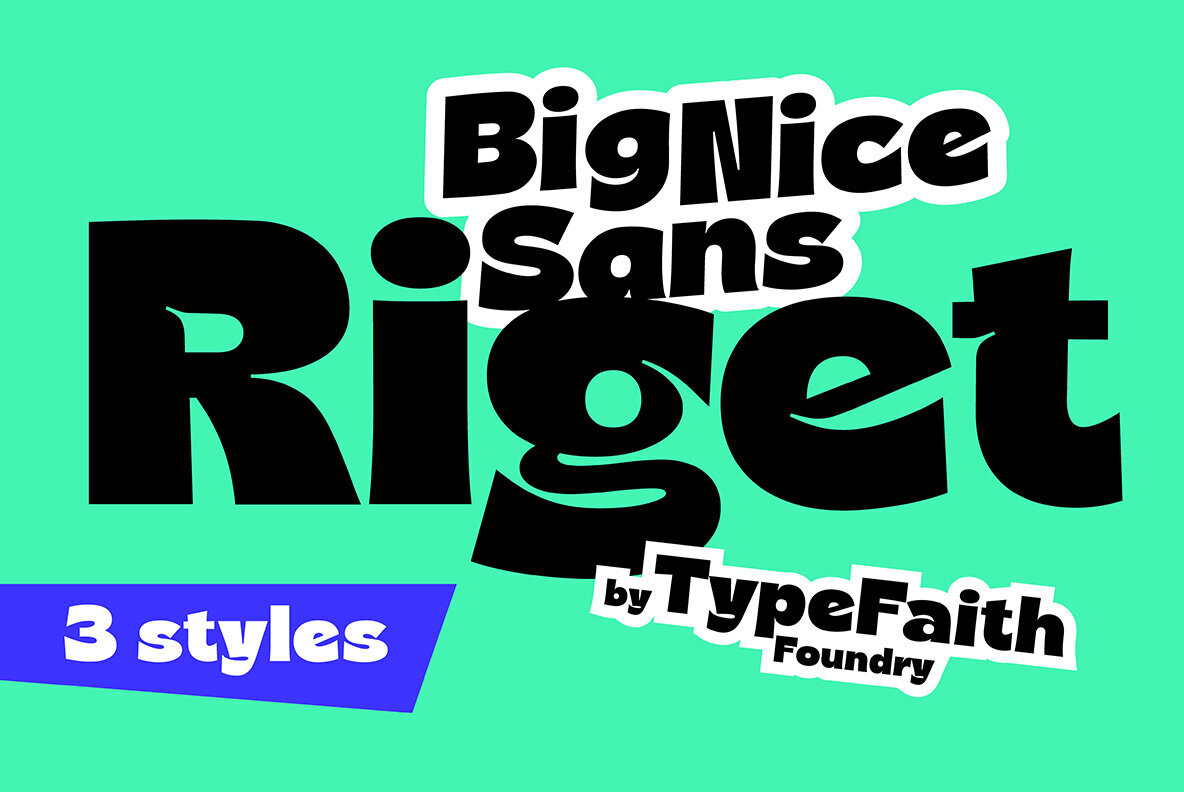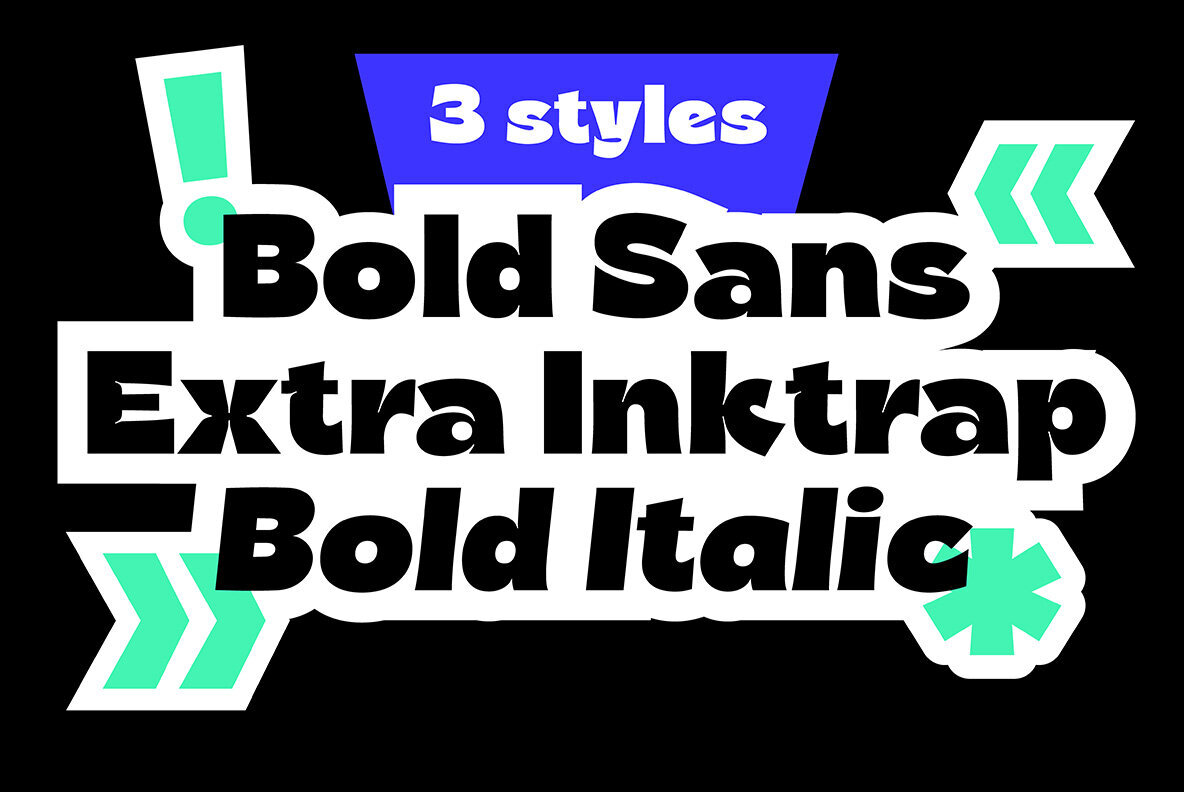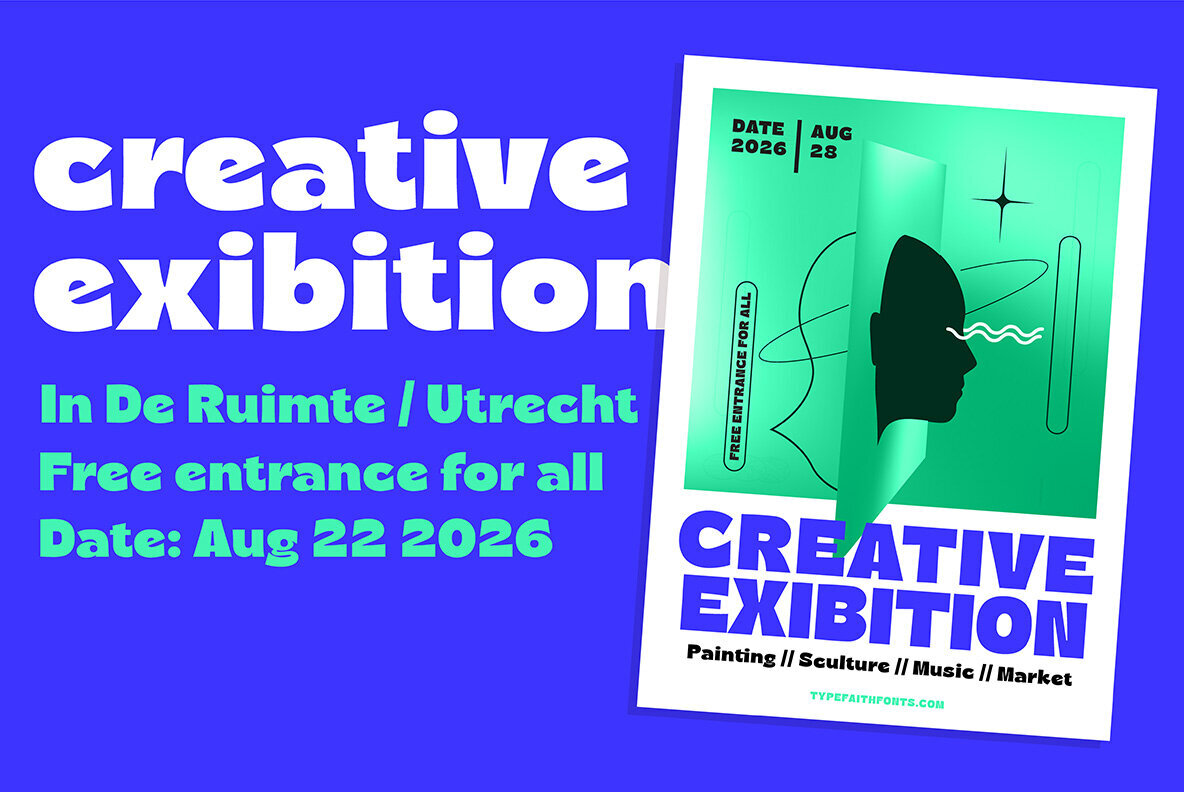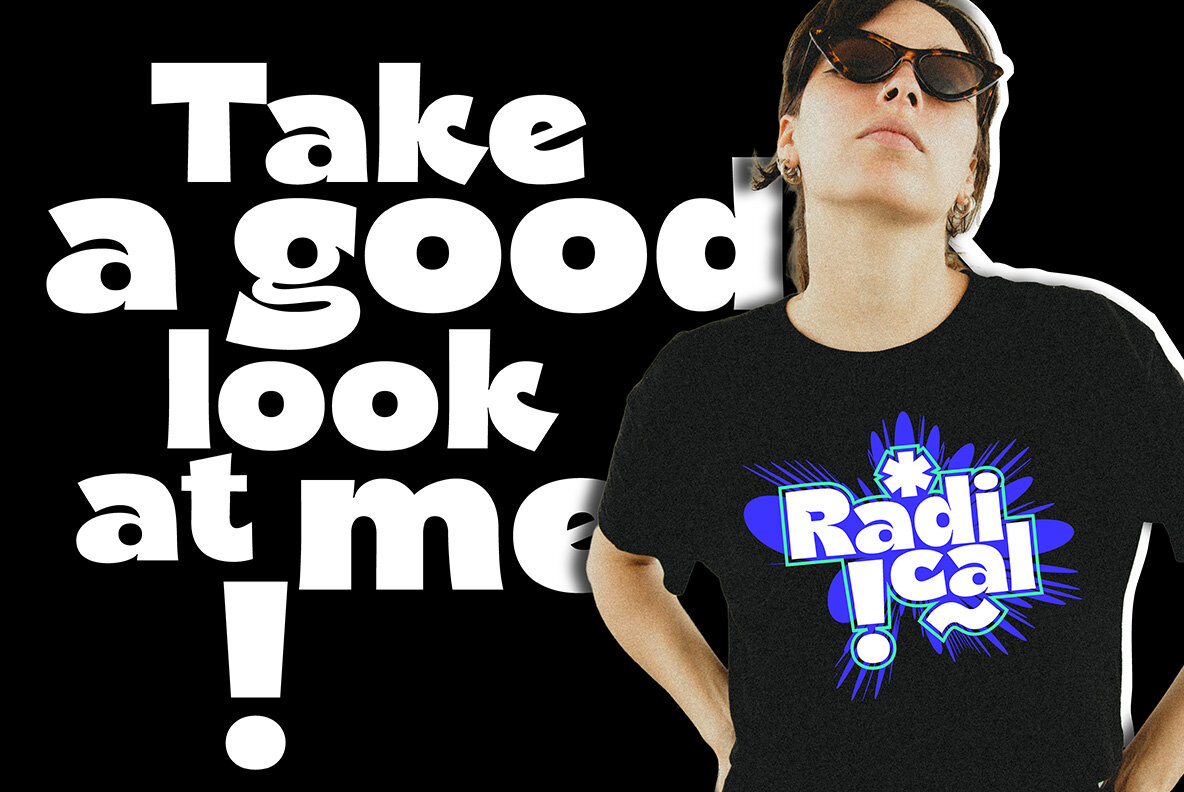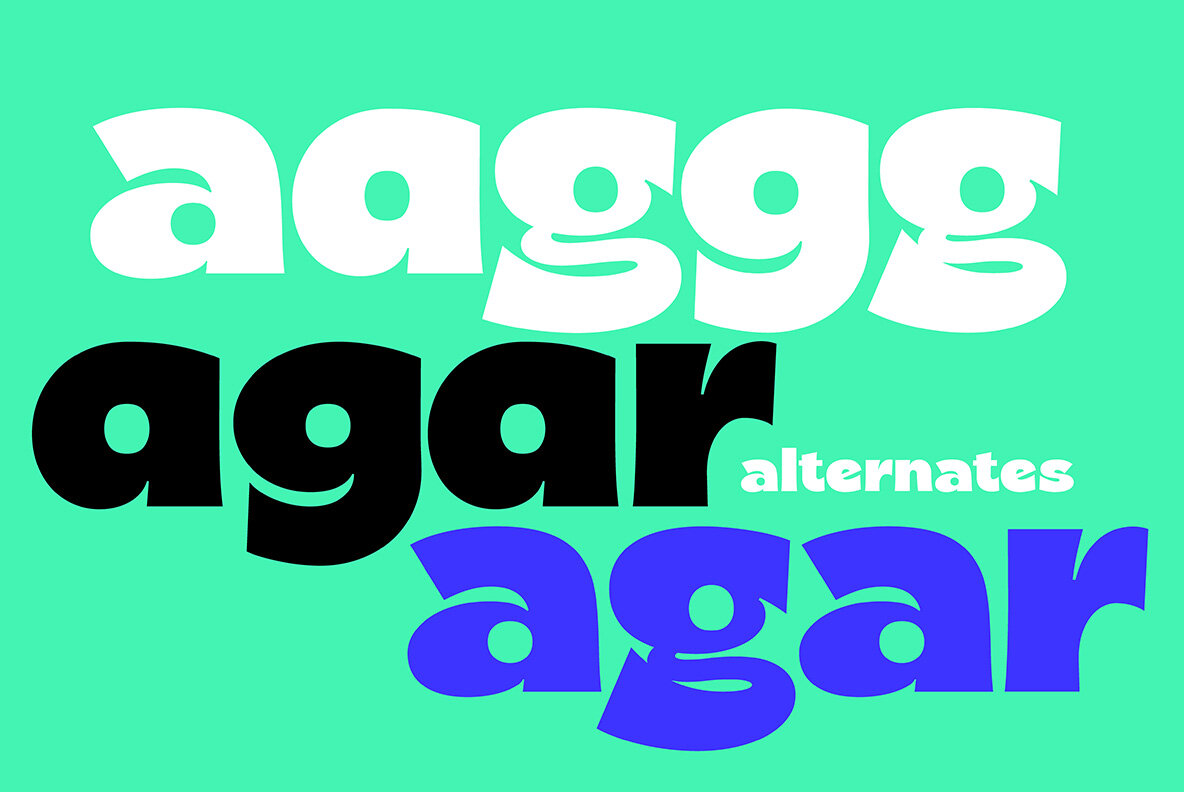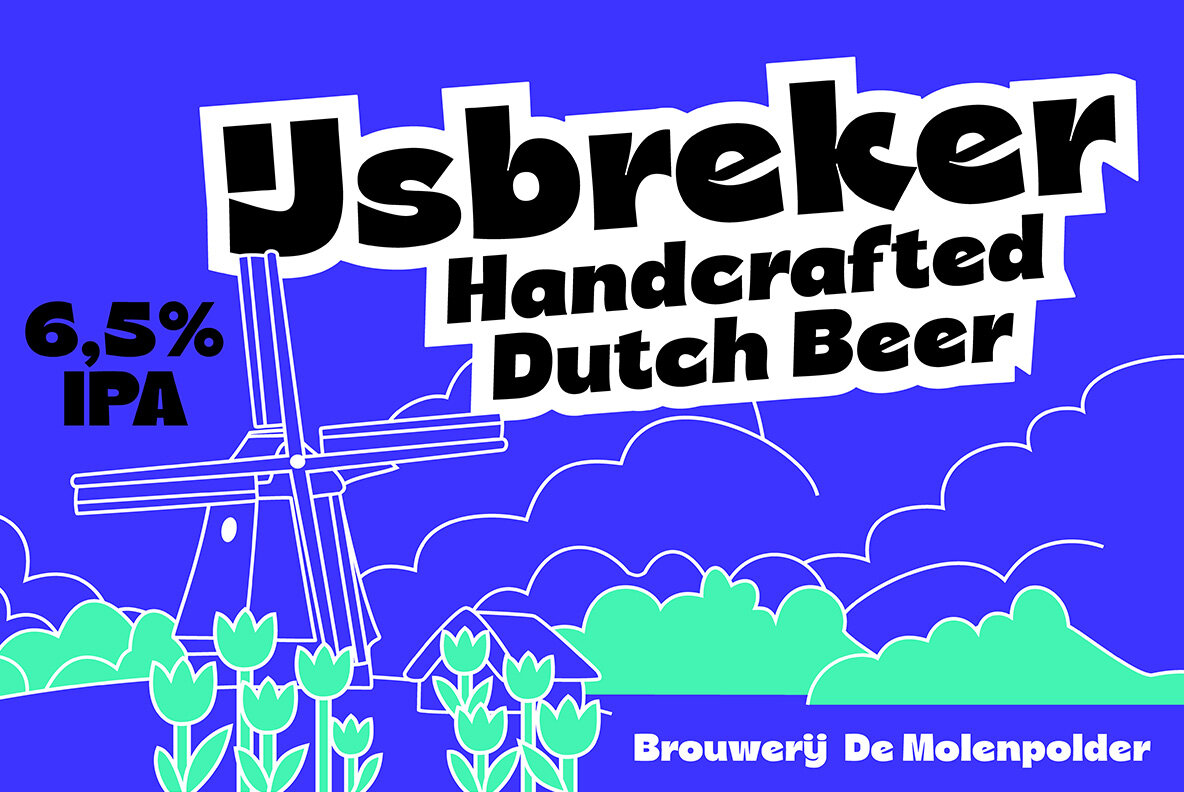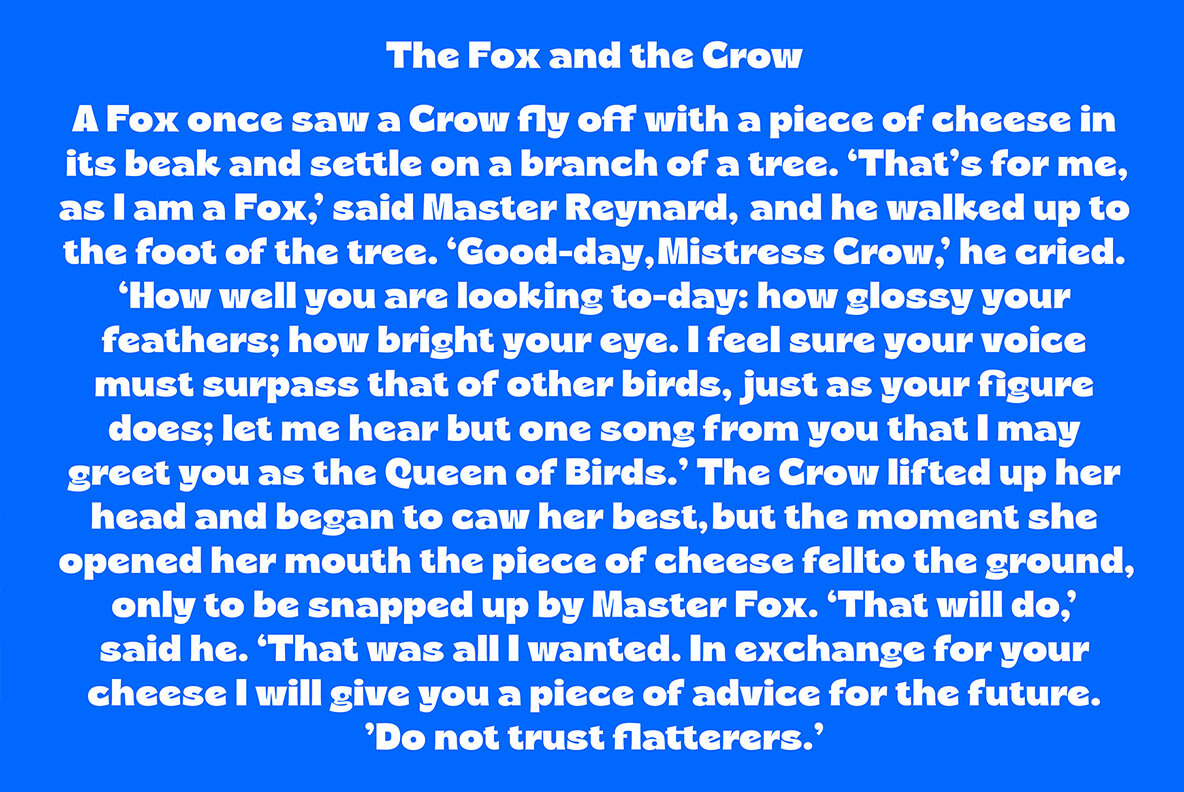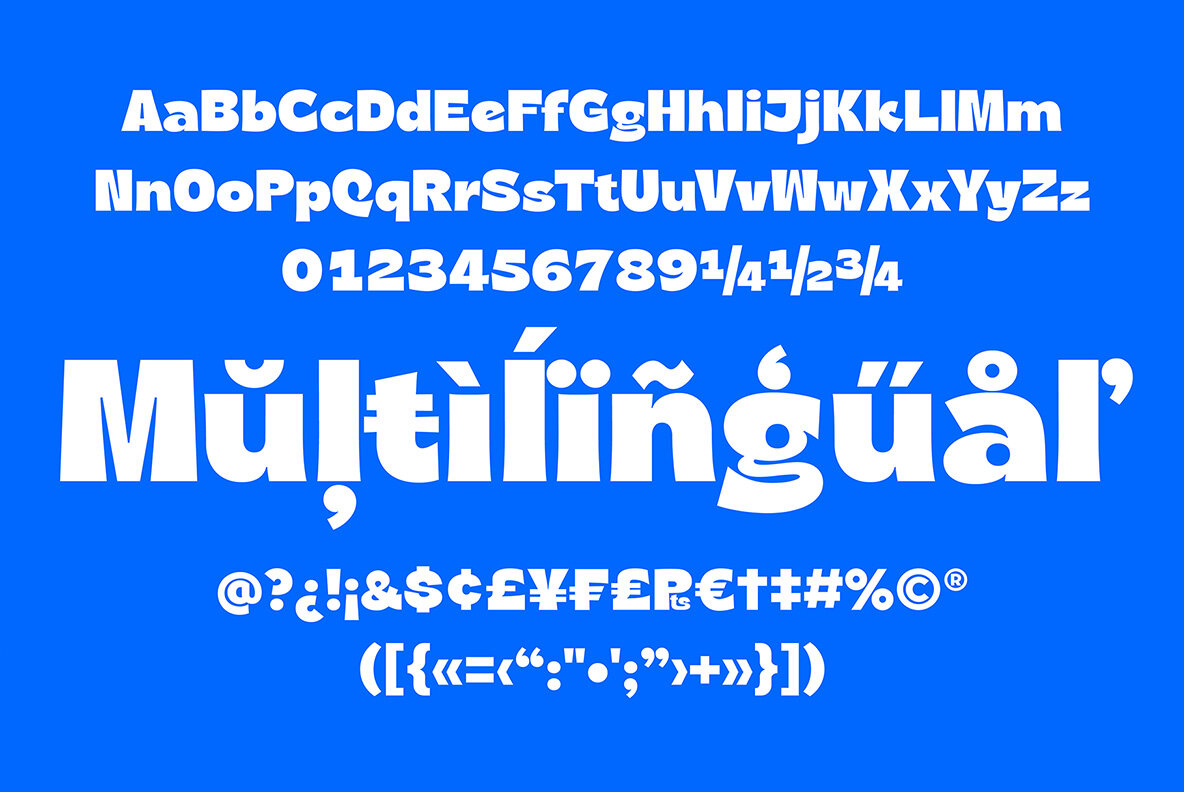
Riget Sans Font
Riget Sans is an extra-expanded font with a playful soul, grabbing attention and bringing posters, flyers, and covers to life. Inspired by classic UltraExpanded grotesques like Helvetica and Univers, this typeface infuses bold energy reminiscent of 90s cartoon and comic typography. It strikes a balance between retro and modern aesthetics. Perfect for logotypes, branding, packaging, and editorial design, Riget Sans offers a daring and standout look for your projects.Riget Sans: A Playful and Bold Extra-Expanded Typeface
Styles and Features